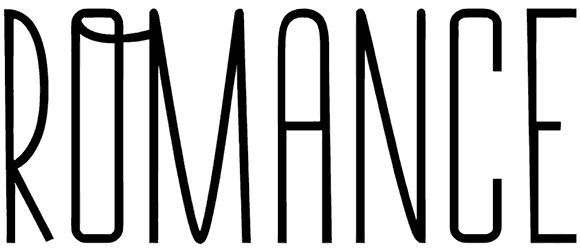
Romance Font
Romance is a lovely doodle font that may convey warm and fun feelings. Its delightful design makes it perfect for a range of artwork that demands a pleasant and informal look, despite the fact that it does not feature lowercase letters.
This feminine tattoo font may be used in wedding invitation cards, Valentine’s Day decorations, and other related projects. Now is the time to download this decorative font and observe as it grabs the attention of the audience.